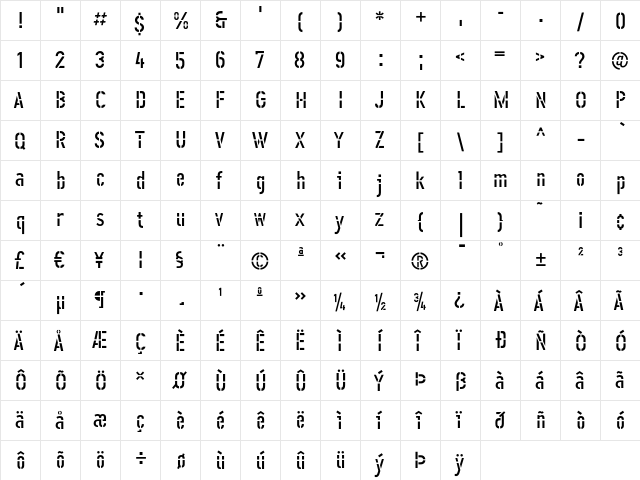
Offline-Regular Regular
Design Context for Offline-Regular Typeface
Offline-Regular is a composed and adaptable typeface that performs quietly and consistently across a wide range of design contexts.